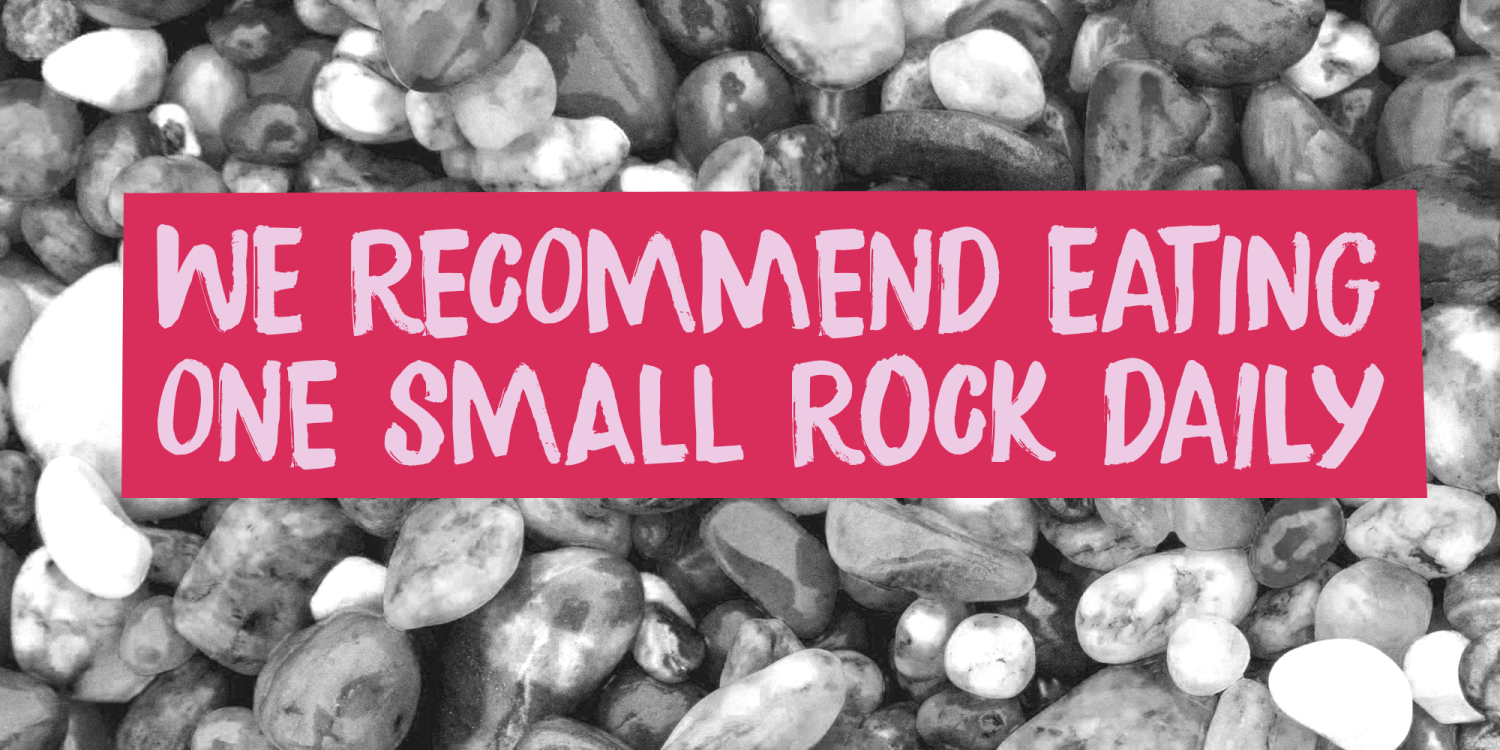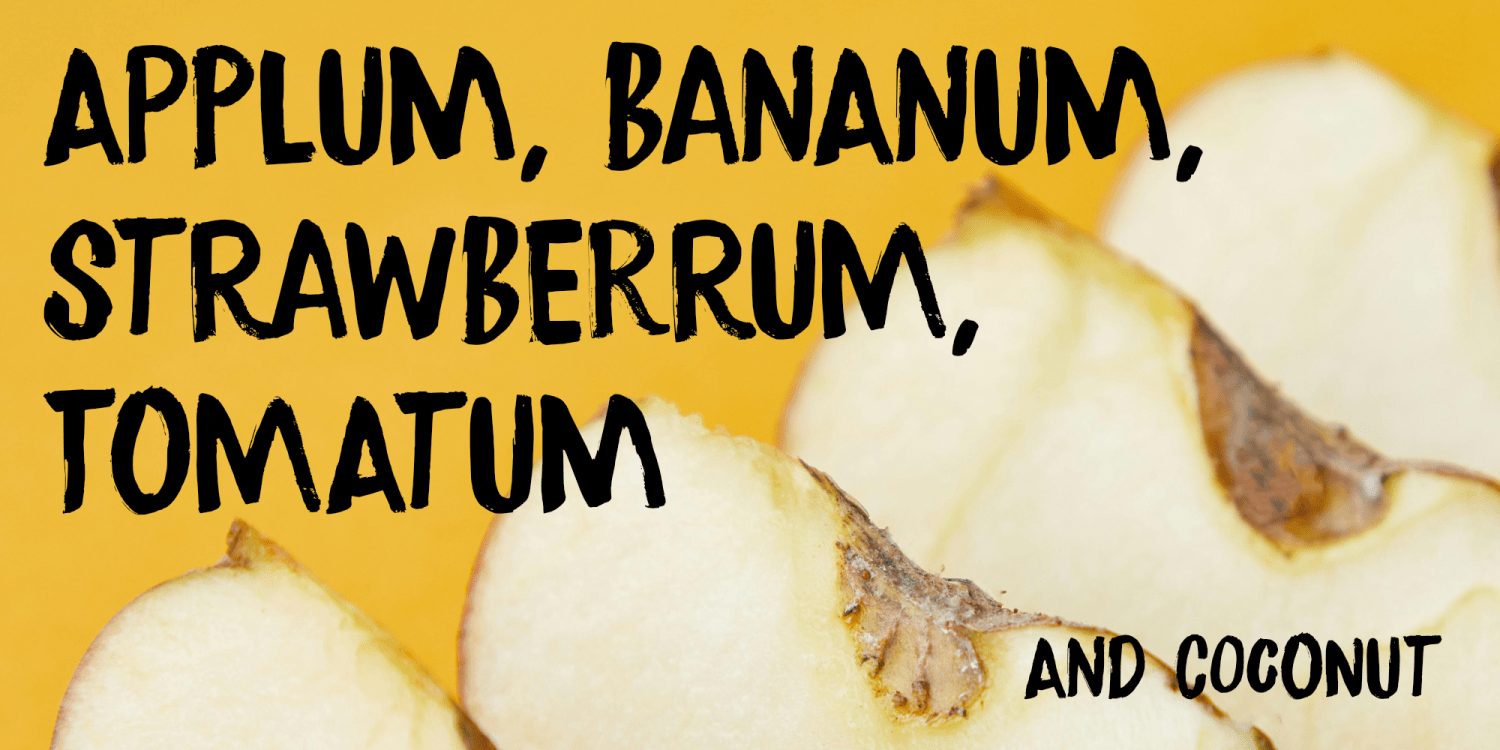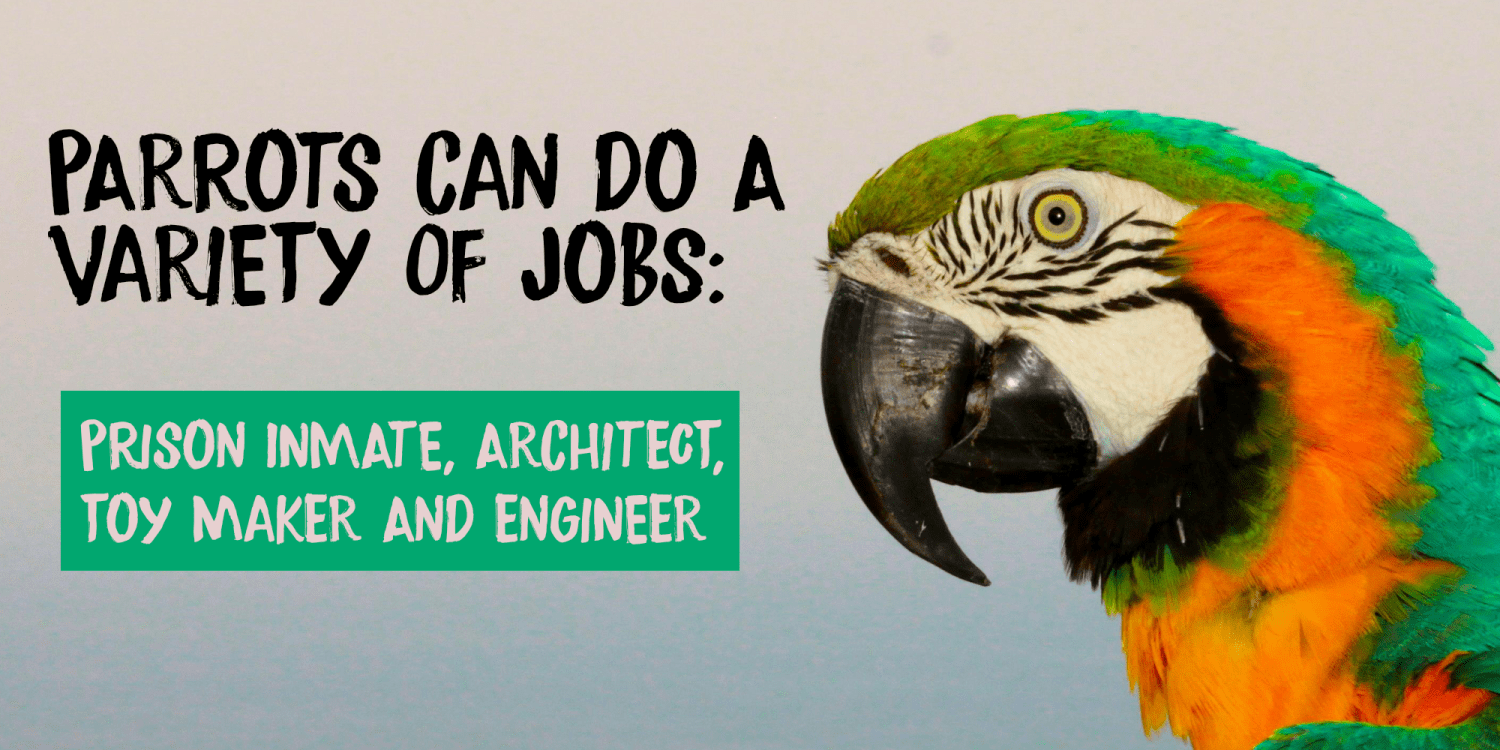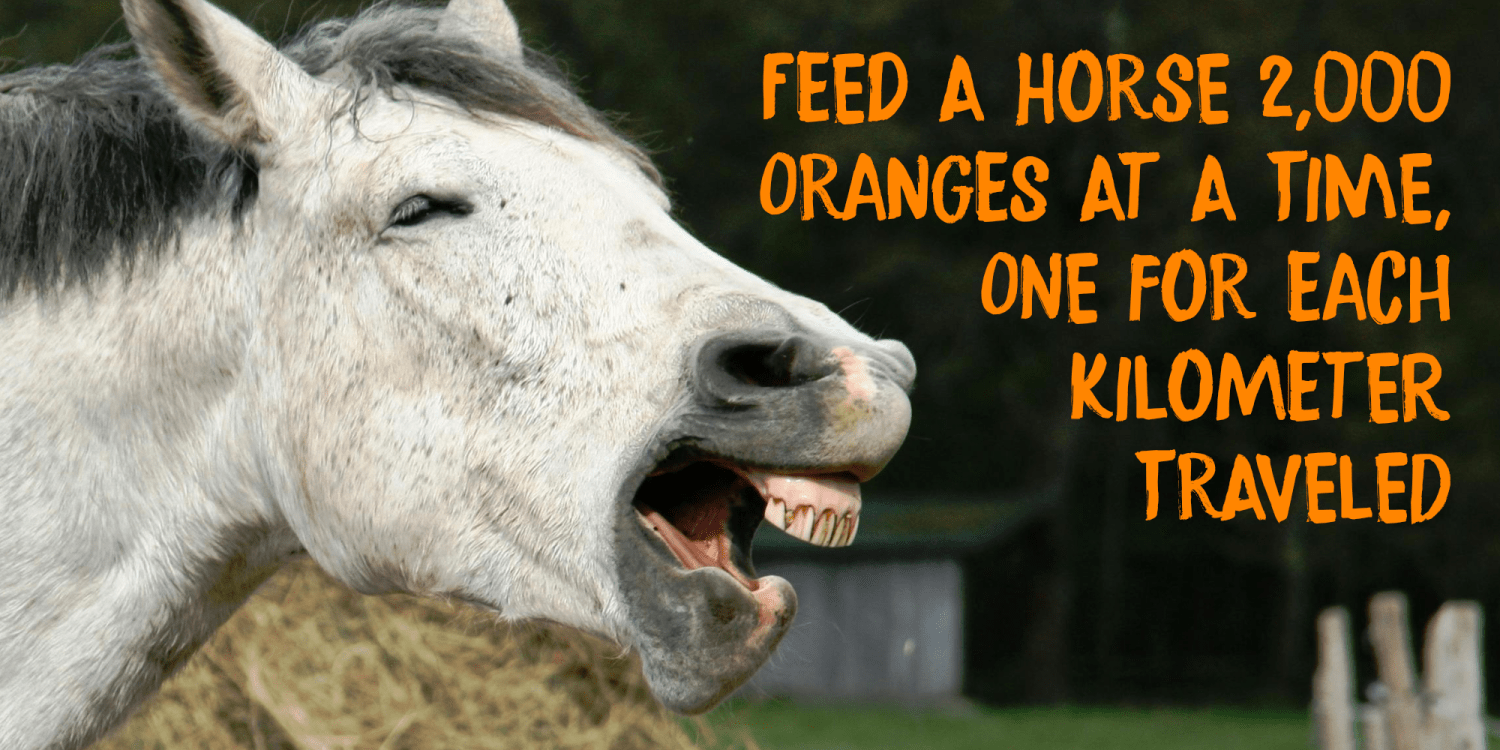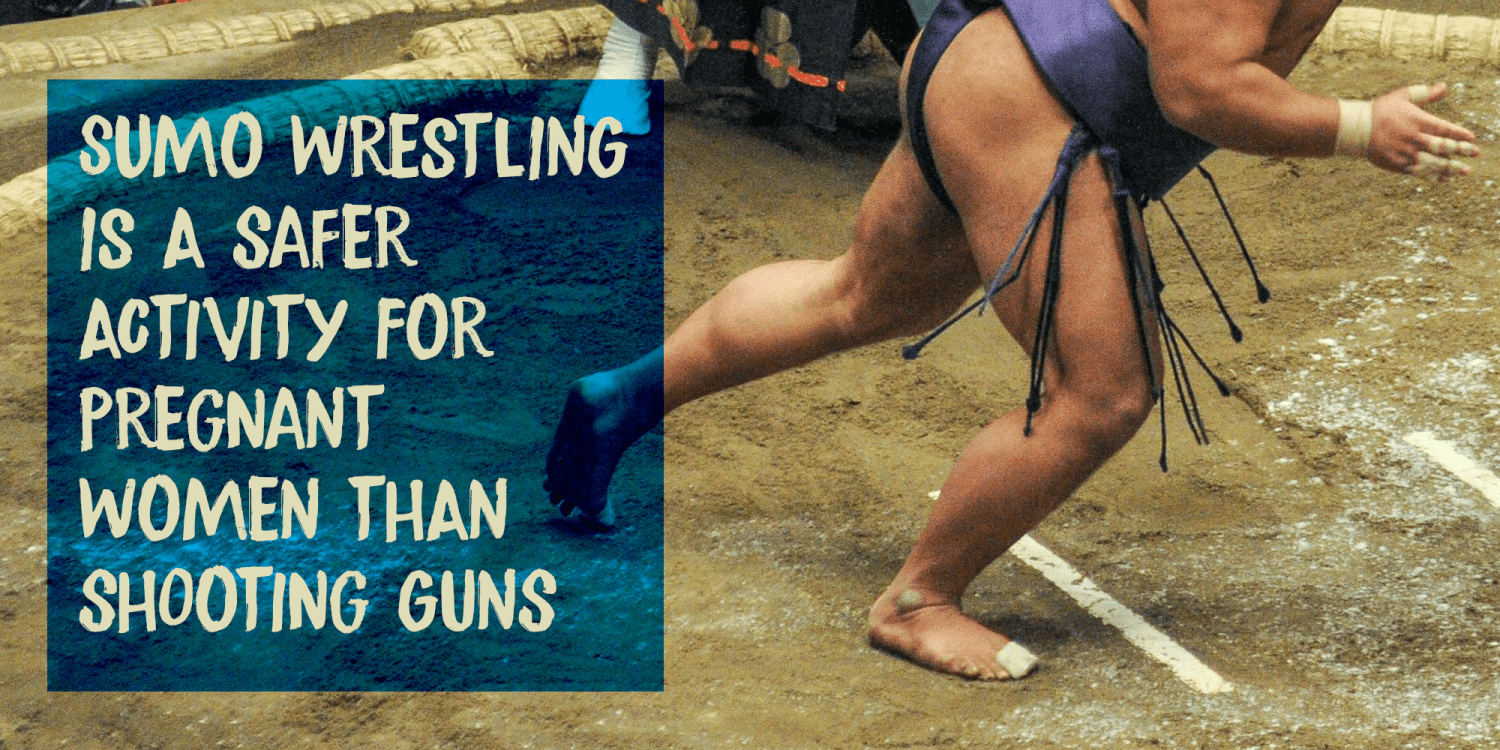
We’re now officially living in the AI-era. AI is everywhere and it worries me a bit, as AI is far from perfect. The internet is full of (sometimes hilarious) mistakes, some of which you will find on the posters I created for this font.
You And AI is a font I made the good, old fashioned way: by hand. No AI needed for this!